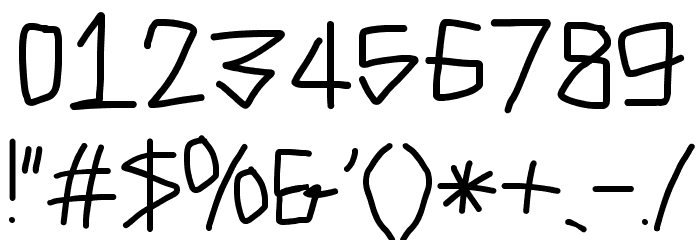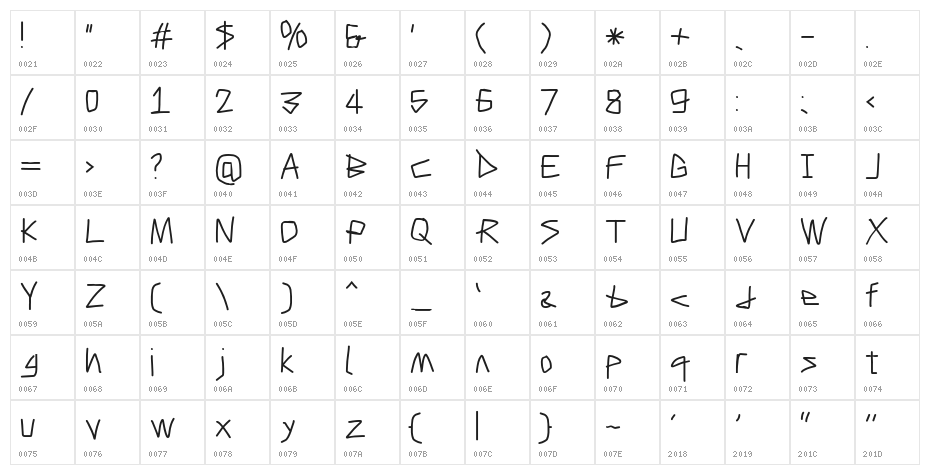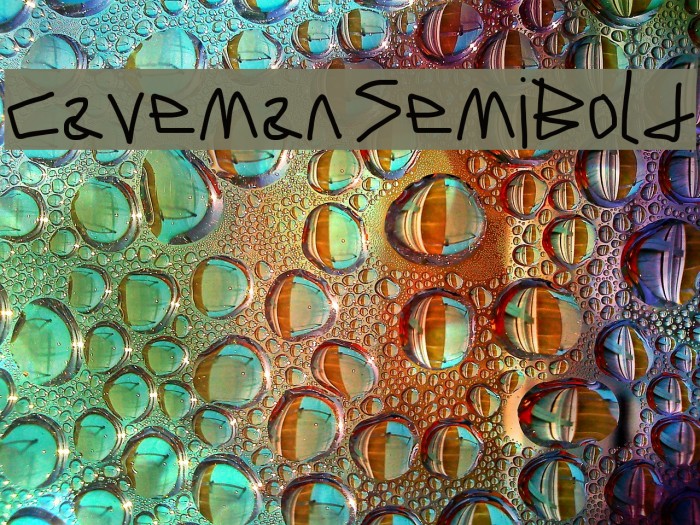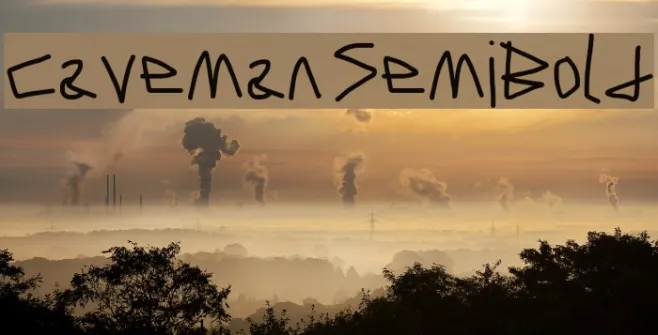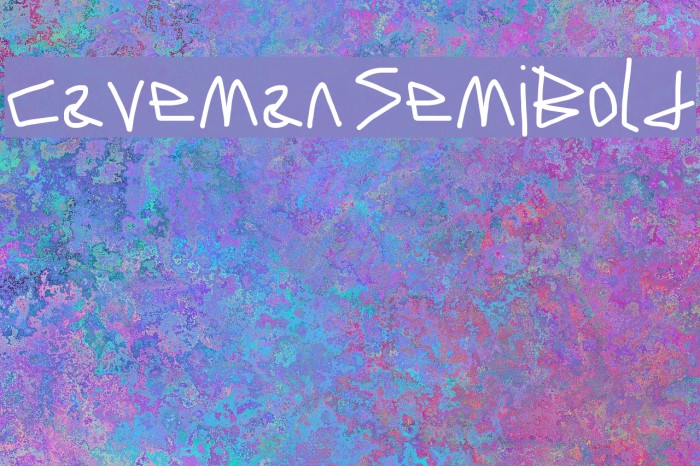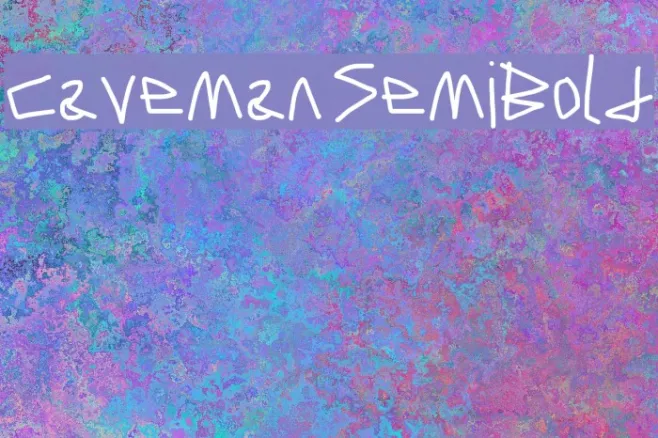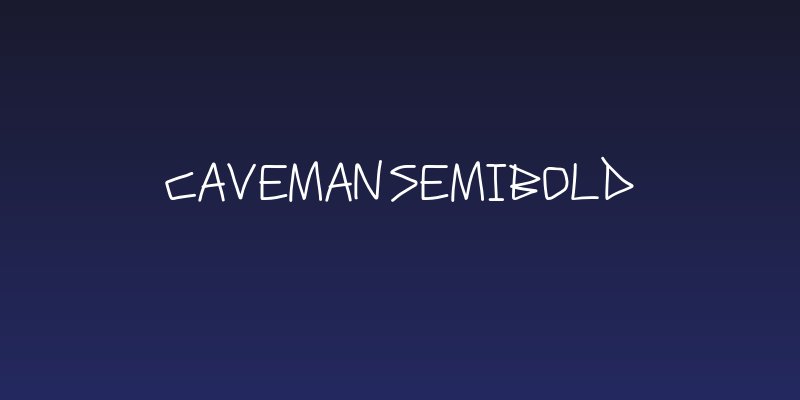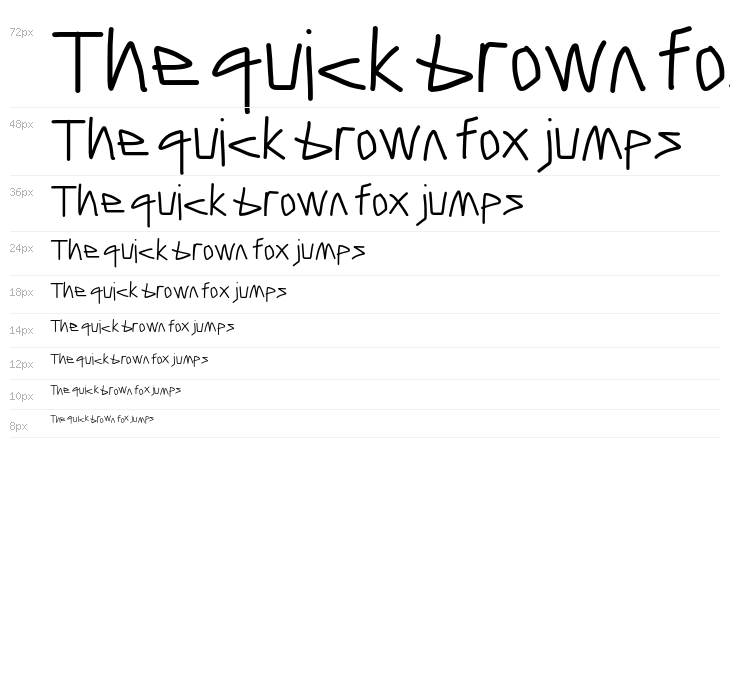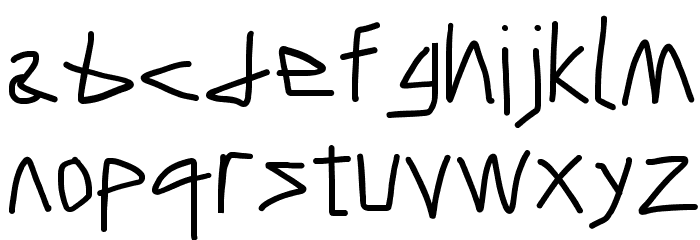
Caveman SemiBold Font
Caveman SemiBold Description
This font features a playful and primitive style, reminiscent of hand-drawn characters with a rugged and uneven appearance. The strokes are bold and slightly irregular, giving it a casual and informal look. The uppercase letters are angular and dynamic, while the lowercase letters maintain a consistent flow with a slightly more rounded form. Numbers and special characters follow the same hand-crafted aesthetic, adding to the overall cohesive design. This font exudes a sense of fun and creativity, making it ideal for projects that require a touch of whimsy and uniqueness.
| Proposed Projects | Ideal for children's books, comic strips, playful branding, and creative posters. |